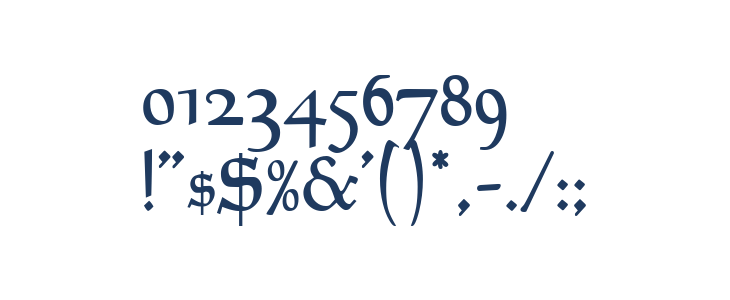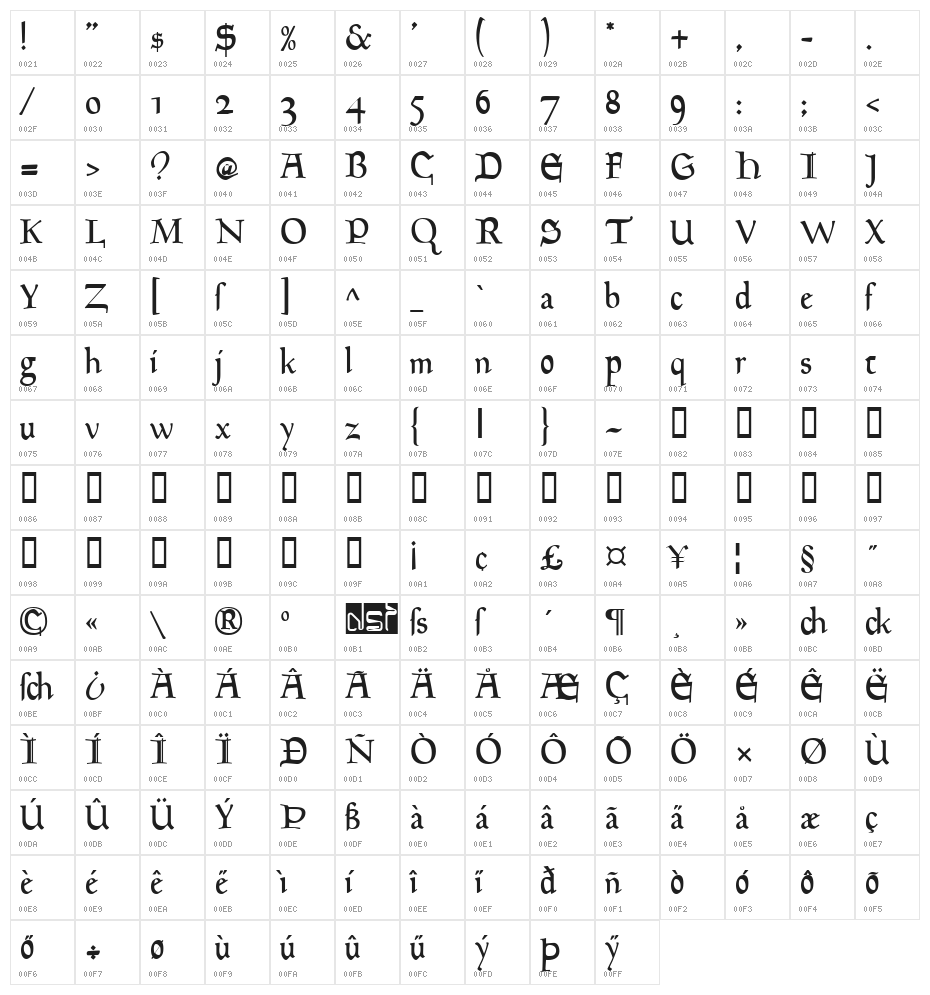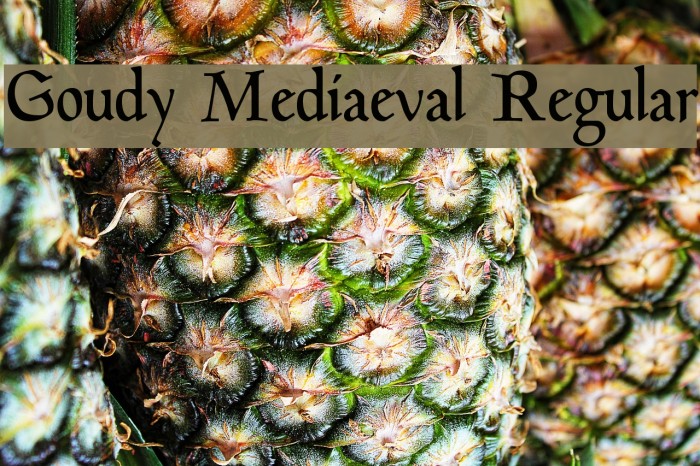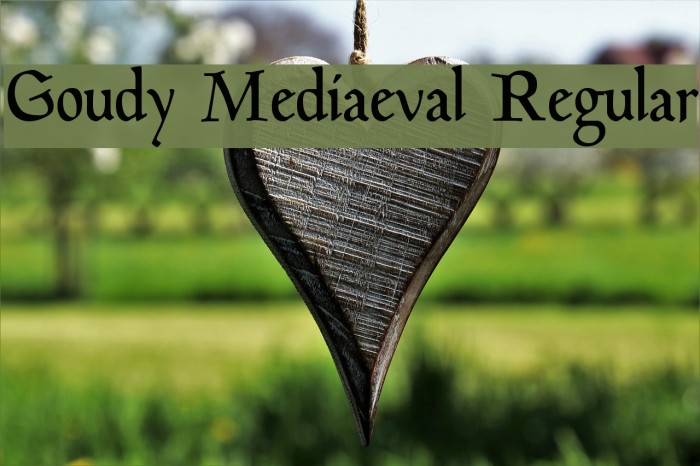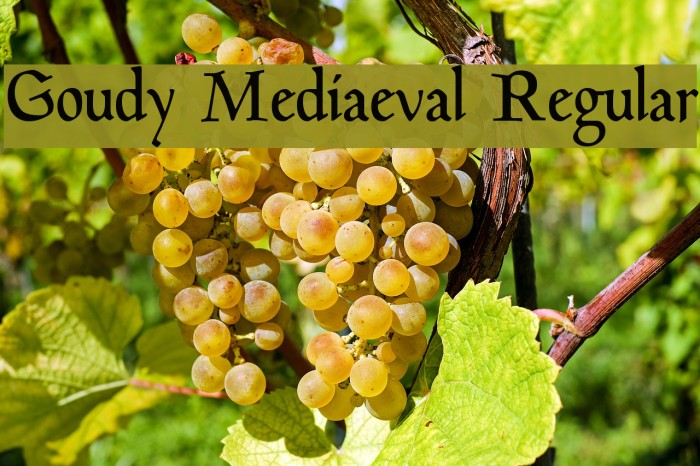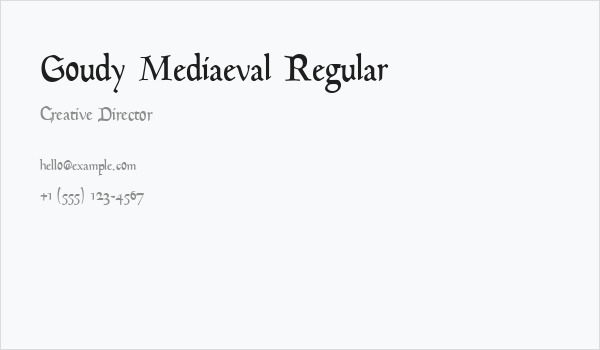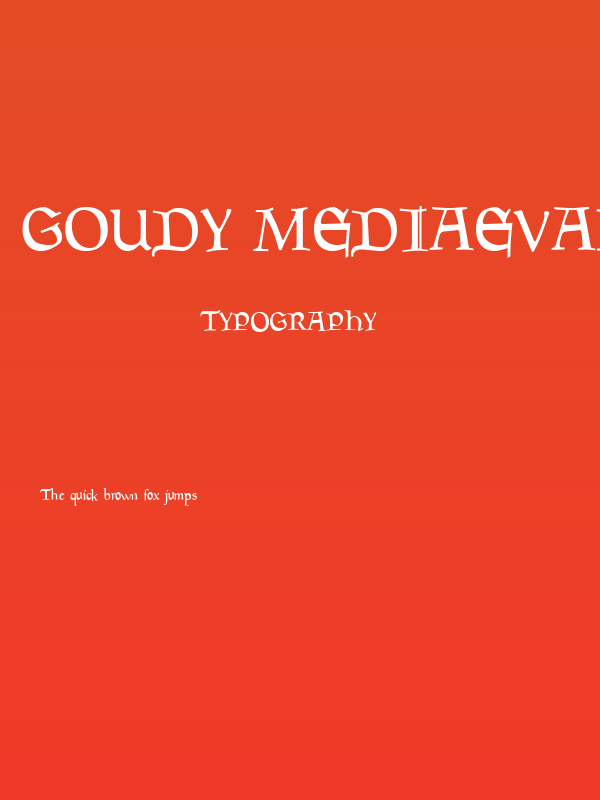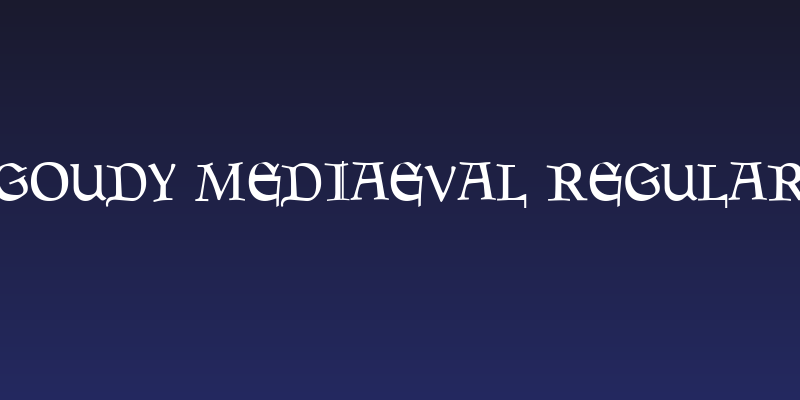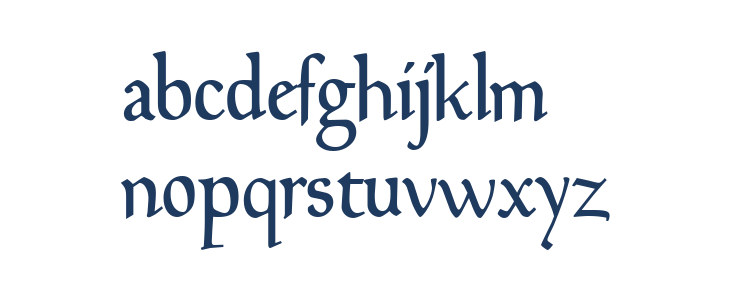
Goudy Mediaeval Regular Font
Goudy Mediaeval Regular Description
This typeface exudes a classic and timeless elegance, characterized by its distinct serif features and slightly calligraphic style. The uppercase letters are bold and commanding, with unique curves and angles that give them a historical feel. The lowercase letters maintain a consistent flow, with some characters featuring gentle curves that add to the font's overall sophistication. The numerals are well-proportioned and align seamlessly with the letters, while the special characters are designed with the same attention to detail, ensuring a cohesive look across all elements. This font's design is reminiscent of traditional book typography, making it suitable for projects that require a touch of vintage charm.
| Proposed Projects | Ideal for book covers, historical documents, invitations, and branding that requires a classic touch. |